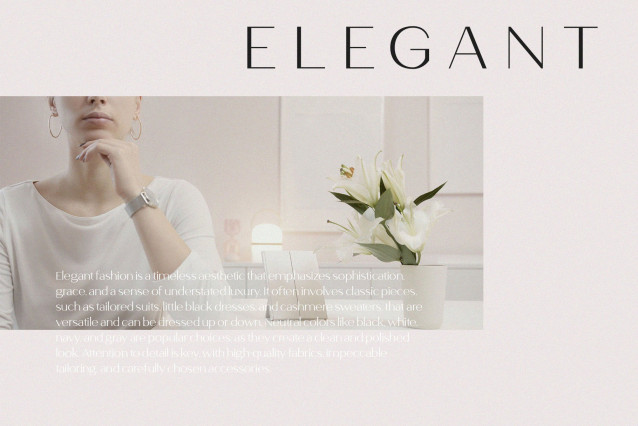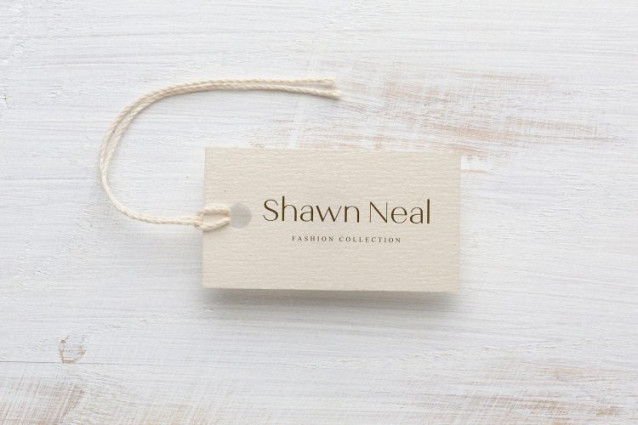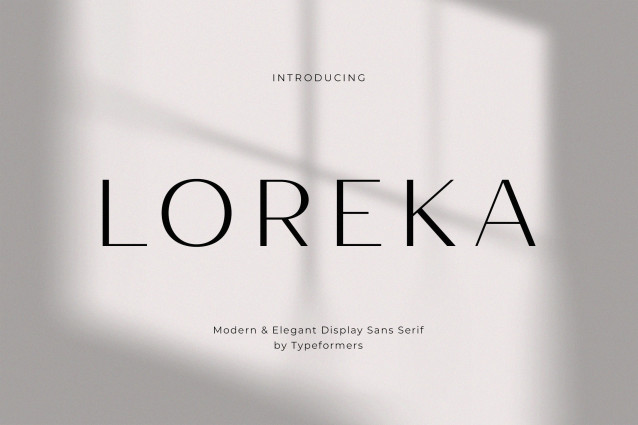
Loreka Font
Loreka Font is a modern and simple font, best used as a display for headings, logos, branding, magazines, product packaging and invitations.